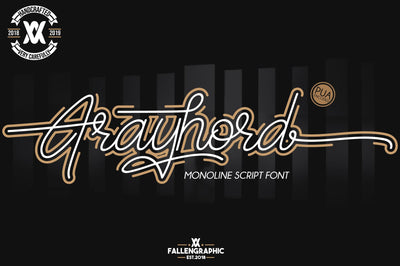
Frayhord Monoline Script
- Full set of extra characters
Frayhord Monoline Script is a modern monoline script font. It has a natural feel and is perfect for signatures, branding, and much more!
- Standard Ligatures
- Stylistic alternate
- Stylistic Set SS01-SSO4